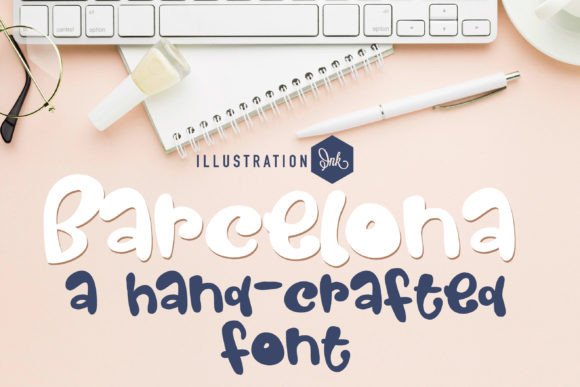
Welcome to the whimsical world of Barcelona Font, a hand-crafted sans serif that radiates fun and playfulness. Inspired by the vibrant energy of Barcelona, this font is designed to bring a touch of joy and creativity to your next project. Each letter dances and twirls with its own unique personality, creating a visual spectacle that is sure to captivate your audience.
Indulge in Barcelona Font's charming imperfections. The rounded uneven lines lend an organic, hand-drawn aesthetic that evokes a sense of authenticity and warmth. It's as if each character was carefully crafted with a steady hand and a keen eye for detail. Immerse yourself in its whimsical details and let your imagination soar.
Barcelona Font's versatility knows no bounds. Whether you're crafting eye-catching print ads, personalizing invitations, or adding a touch of whimsy to your greeting cards, this font is your creative companion. Its playful nature pairs perfectly with projects that call for a friendly and approachable tone. Unleash your creativity and let Barcelona Font add a touch of magic to your designs.
Step into the world of Barcelona Font and let its enchanting aura captivate you. Embark on a creative adventure where imagination and playfulness intertwine. Experience the joy of using a font that feels like a breath of fresh air, a font that sparks creativity and ignites your passion for design. Barcelona Font is more than just a font; it's an invitation to let your imagination run wild and create something extraordinary.